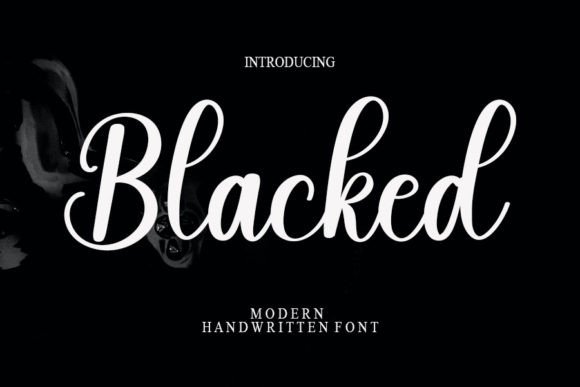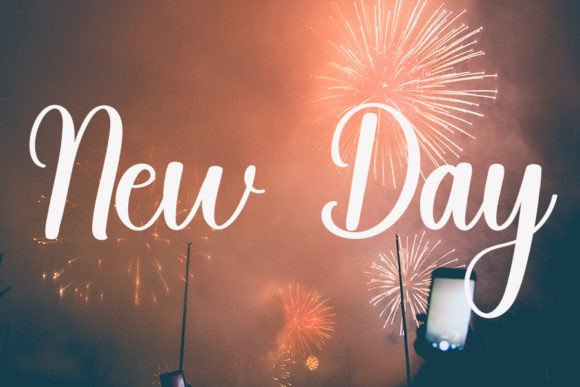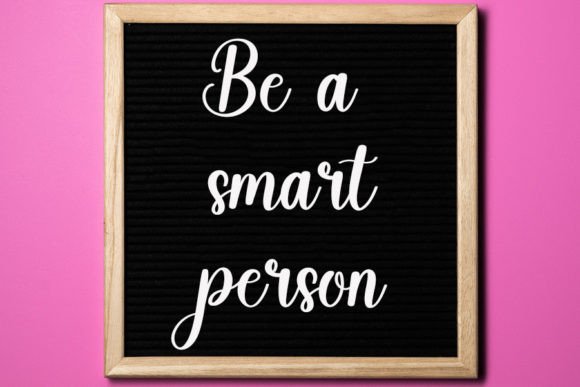
About Blacked Font
Blacked font is a casual and relaxed script typeface designed to bring charm and versatility to your creative projects. Its smooth flow and natural style make it an excellent choice for a variety of designs that need a personal, handcrafted touch.
Casual and Relaxed Style for Every Project
The relaxed nature of Blacked font allows it to fit perfectly into projects that require warmth and approachability. Whether you are creating wedding invitations, designing stationery, or producing social media content, this font adds a graceful yet laid-back vibe that enhances your work’s overall appeal.
Ideal for Wedding Invitations and Stationery
Blacked font truly shines in wedding invitations and stationery art. Its elegant strokes and casual script style help create designs that feel both heartfelt and stylish. Use it to add a personal touch that guests will appreciate and remember.
Stand Out on Social Media
In the digital world, Blackedfont proves highly effective for social media posts. It catches the eye while maintaining readability, making your messages clear and engaging. From Instagram posts to Facebook stories, it offers a unique look that resonates with followers.
Versatile for Many Creative Uses
Beyond weddings and social media, Blackedfont works beautifully in branding, quotes, packaging, posters, and more. Its flexible design ensures it complements a wide range of creative projects, giving them a fresh and inviting appearance.
Why Choose Blacked Font?
If you want a script font that combines casual elegance with broad usability, Blackedfont is a fantastic option. It will add warmth and personality to your designs, making every project stand out with its distinctive style.